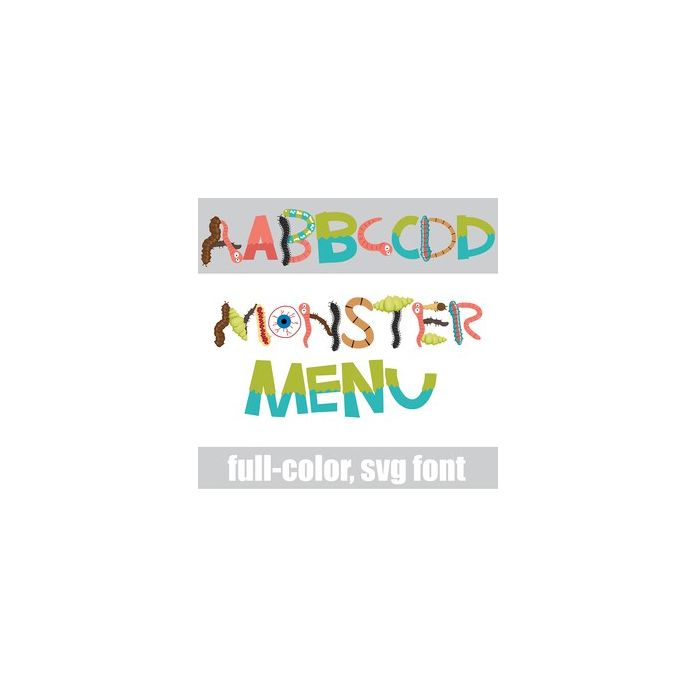
This full-color font features an uppercase made out of bugs and eyeballs. There is an alt case w/ additional colors you can access through your system or Silhouette's glyph map.